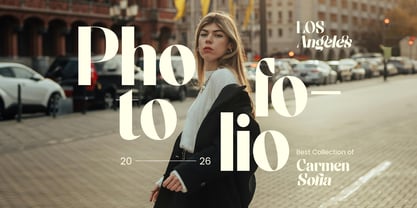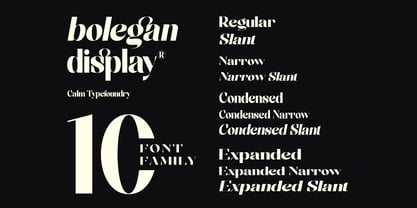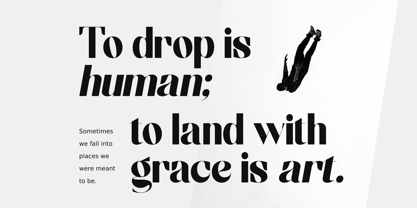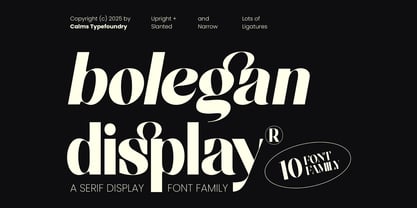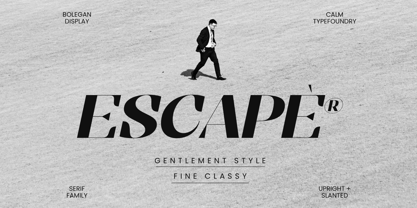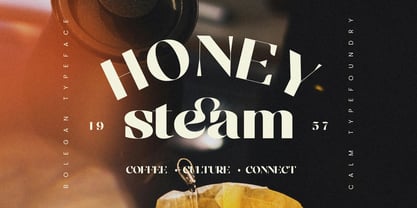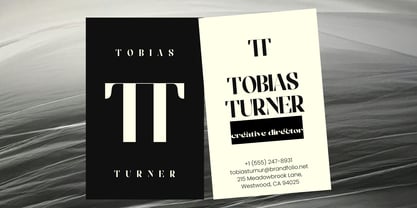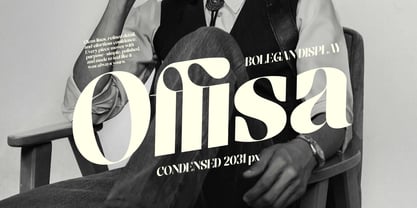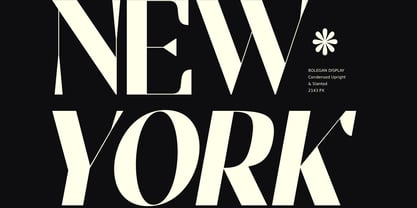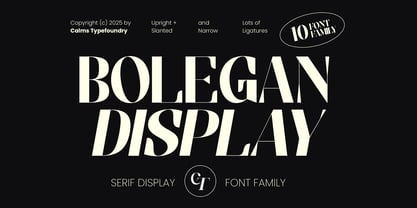
Bolegan Display
by Calms Type Foundry
The Bolegan Display Font Family was designed by Muhammad Jamil and published by Calms Type Foundry. Bolegan Display contains 10 styles and family package options. More about this family
Introducing Bolegan Display: A Typeface for Timeless Elegance Bolegan Display is a modern serif display typeface that beautifully combines classic sophistication with a bold, contemporary twist. Featuring high contrast strokes, narrow proportions, and stylish ligatures, Bolegan Display is designed to make every word look powerful and refined. With 10 font styles (Upright & Slanted), this versatile type family is perfect for branding, editorials, logos, packaging, and fashion-related projects. Features: - 10 font family (upright & slanted styles) - Lots of ligatures & alternates - Elegant, bold, and modern serif shapes Perfect for: Editorial headlines, luxury branding, magazine titles, product packaging, and high-end visual identities. Happy creating everyone!
Designers: Muhammad Jamil
Foundry: Calms Type Foundry